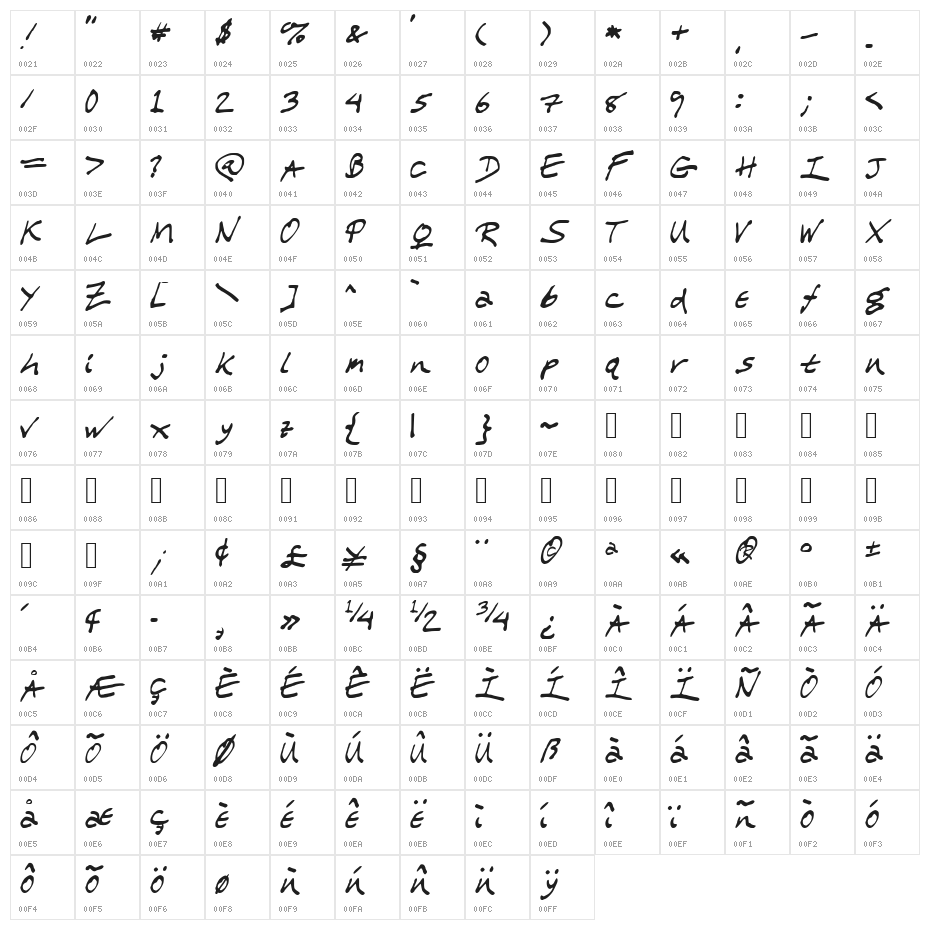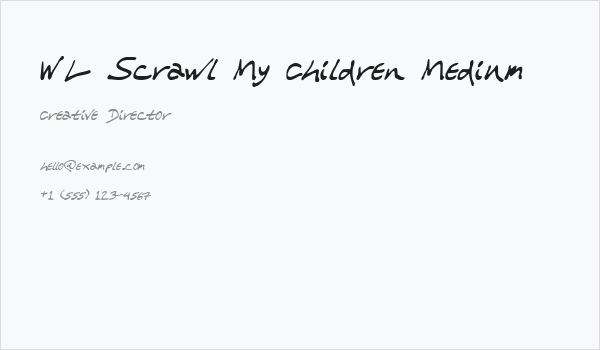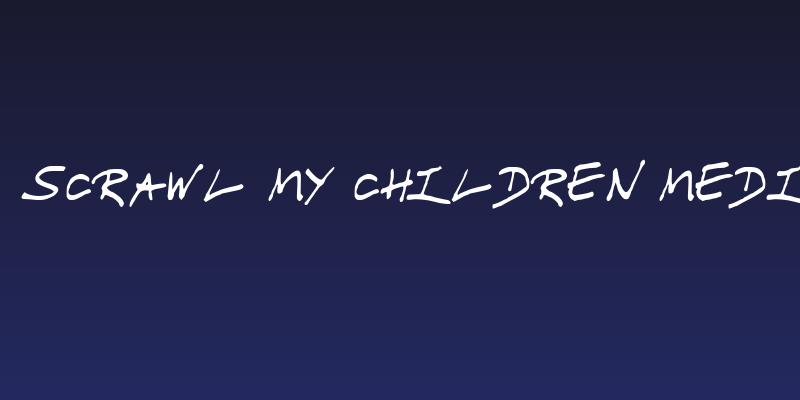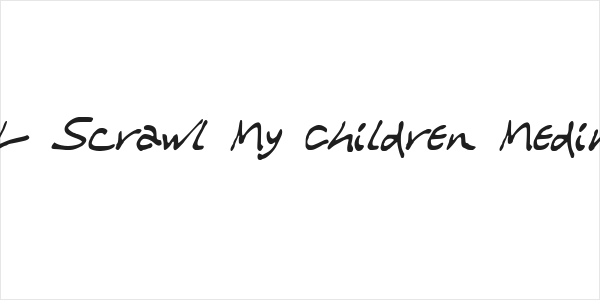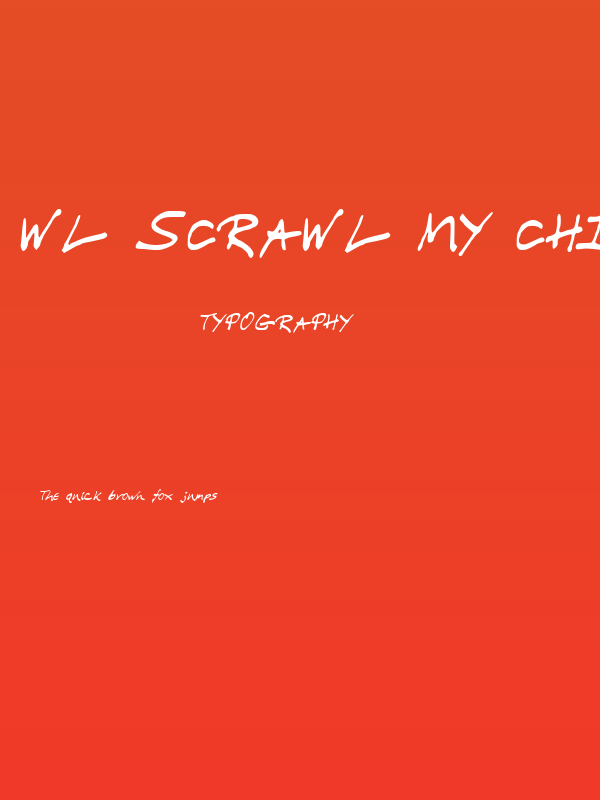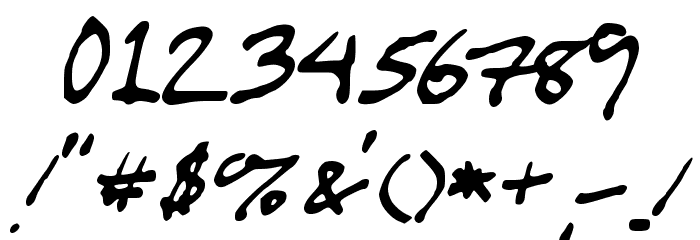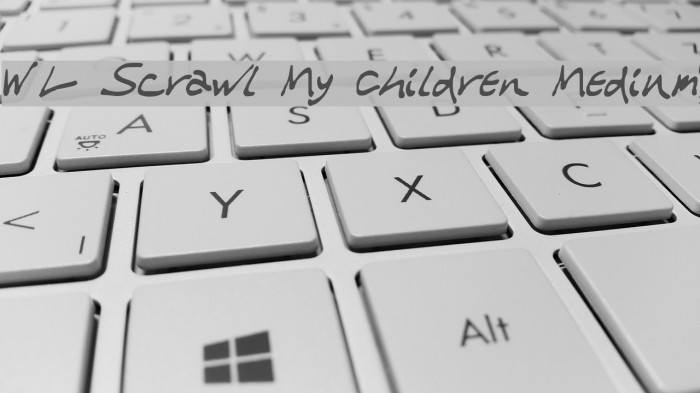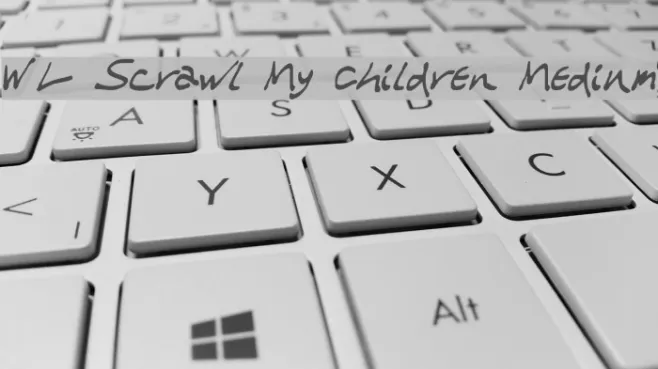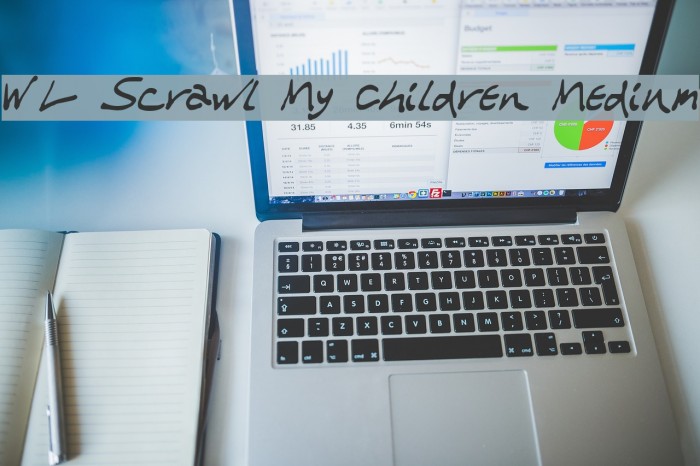
WL Scrawl My Children Medium Font
WL Scrawl My Children Medium Description
This font exhibits a playful and informal handwritten style, reminiscent of casual scrawls or doodles. The characters are unevenly sized and spaced, adding to the whimsical and spontaneous feel. The strokes are bold and vary in thickness, giving the font a dynamic and lively appearance. The uppercase and lowercase letters maintain a consistent style, with some letters featuring unique flourishes and loops. Numbers and special characters are equally expressive, fitting seamlessly with the overall aesthetic. This font captures a sense of creativity and personal touch, making it ideal for projects that require a human element.
| Use Case | Logos, Headlines, Creative projects |
| Proposed Projects | Ideal for children's book covers, playful invitations, casual branding, and creative social media graphics. |